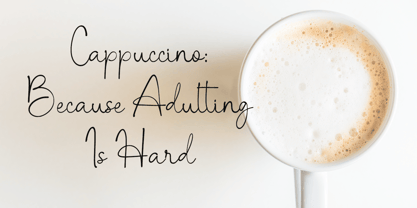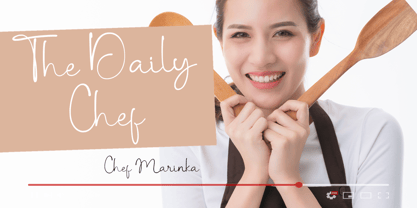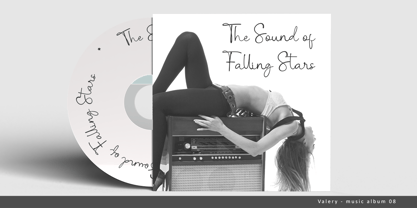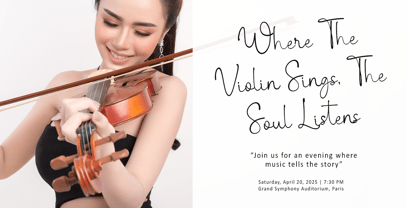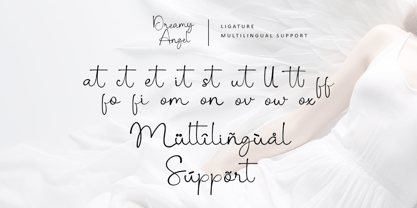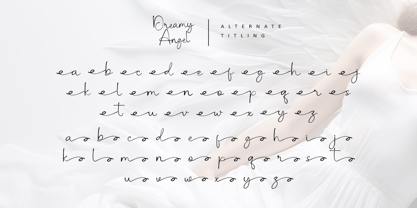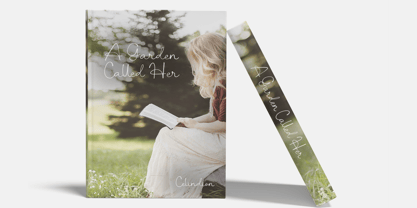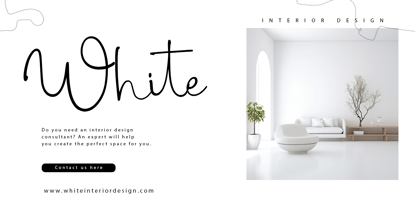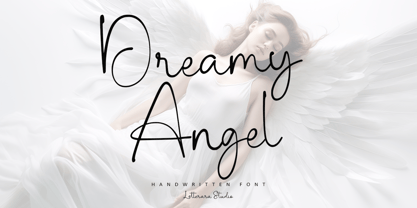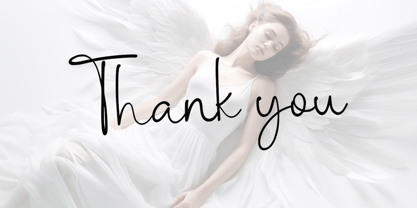
Dreamy Angel
by Letterara
The Dreamy Angel Font Family was designed by Thomas Aradea and published by Letterara. Dreamy Angel contains 2 styles and family package options. More about this family
Dreamy Angel is a graceful handwritten font that captures the delicate beauty of a natural touch with every stroke. Inspired by the softness of dreams and the elegance of angelic motion, this font flows effortlessly—perfectly balancing sophistication and warmth. Each letter is thoughtfully crafted to feel like an authentic, heartfelt handwritten, ideal for logos, branding, invitations, posters, and high-end packaging. With PUA encoding, stylish alternates, and smooth curves, Dreamy Angel gives you the creative freedom to create typography that feels luxurious, expressive, and truly unforgettable.